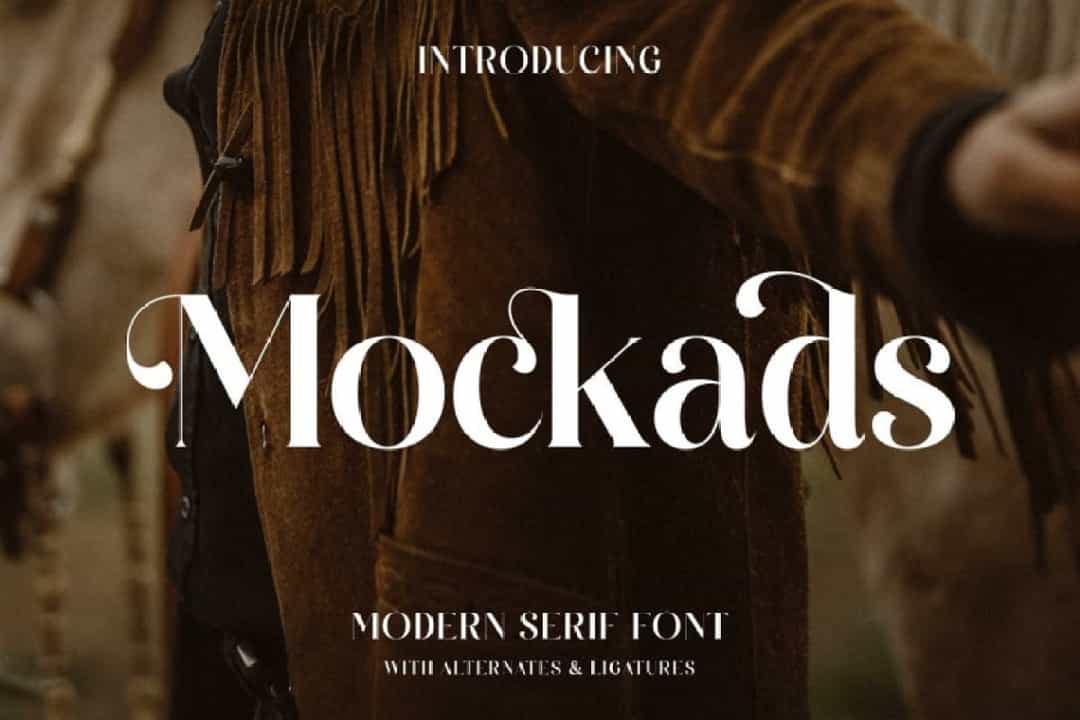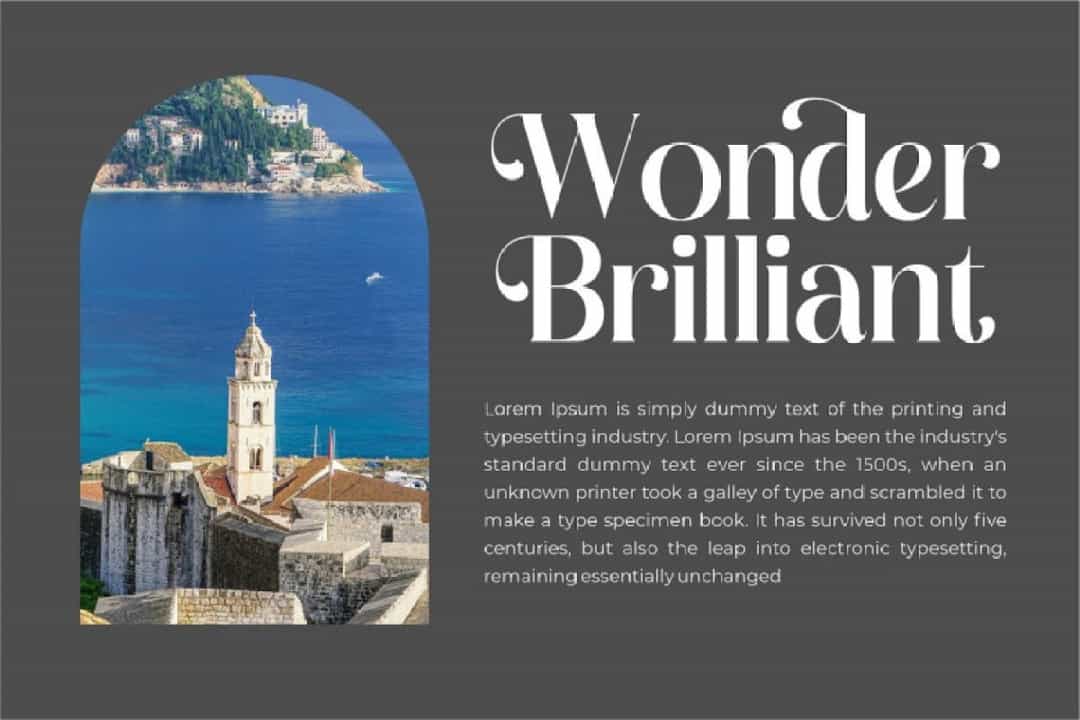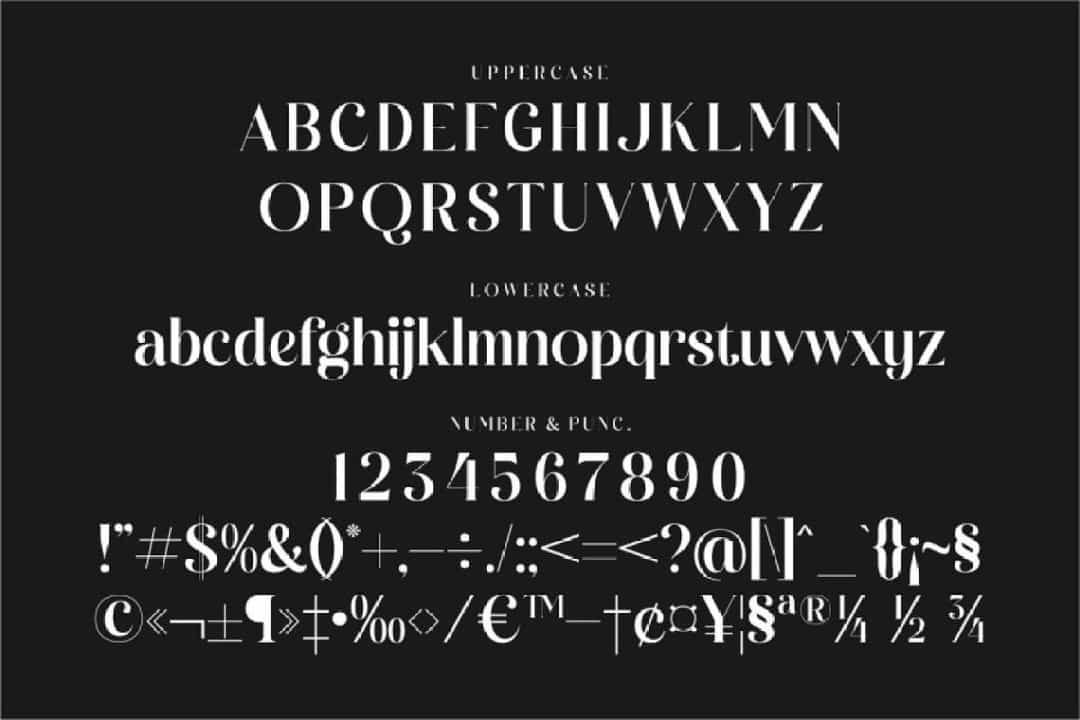
Mockads is an elegant serif typeface with modern appearance, creating an ideal typeface to use for logo design, movie/book title design, fashion label clothing labels and magazine article headlines, lettering purposes or even quotes and quotations.